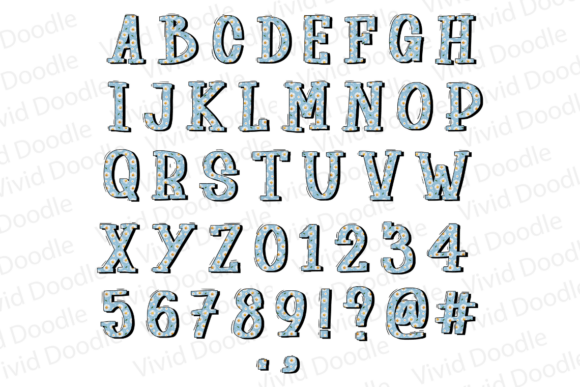
Mother's Day Flowers Font
Mother’s Day Flowers Font is a beautifully crafted typeface that radiates love, warmth, and elegance—perfect for celebrating moms everywhere! Inspired by delicate floral designs, this font adds a graceful and heartfelt touch to your creative projects. Whether you’re designing Mother’s Day cards, heartfelt letters, posters, invitations, or social media graphics, Mother’s Day Flowers Font brings a soft, blooming charm to any design. Let your words flourish like a garden full of love with this enchanting and decorative font!Note! This product is a color font (Opentype-SVG) and is compatible with PhotoShop, Illustrator, and Silhouette. The OTF and/or TTF files of this product are not compatible with Cricut and Inkscape. For more information on how to use this type of font please check our Ultimate Font Guide.